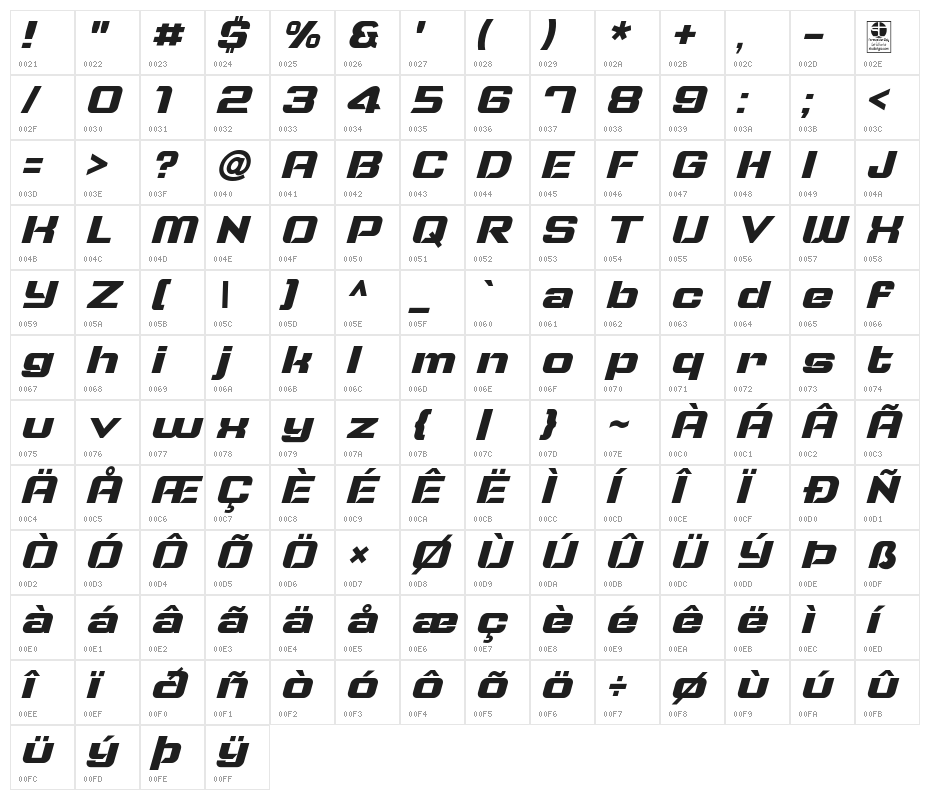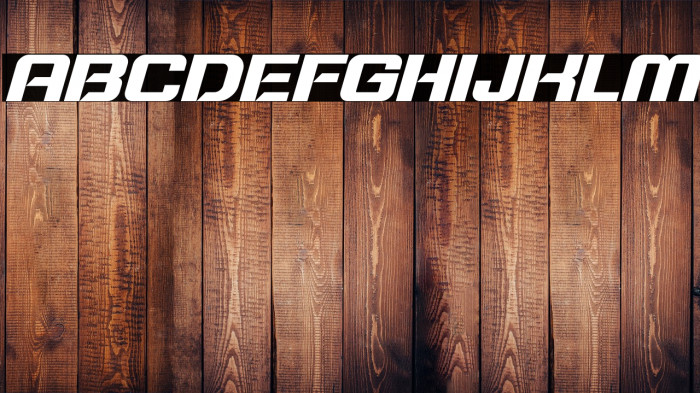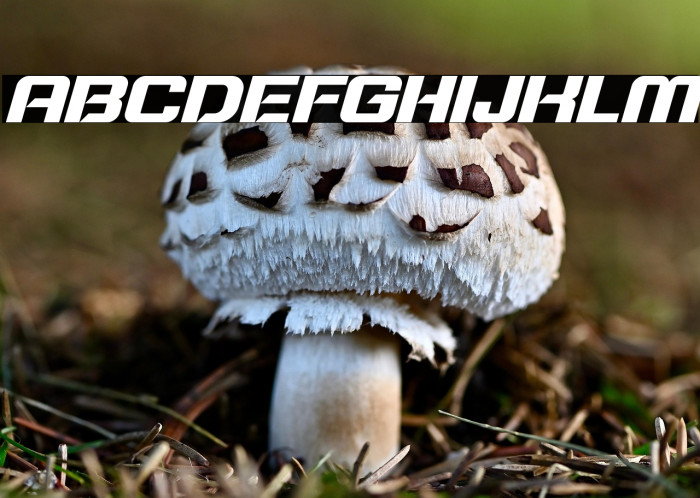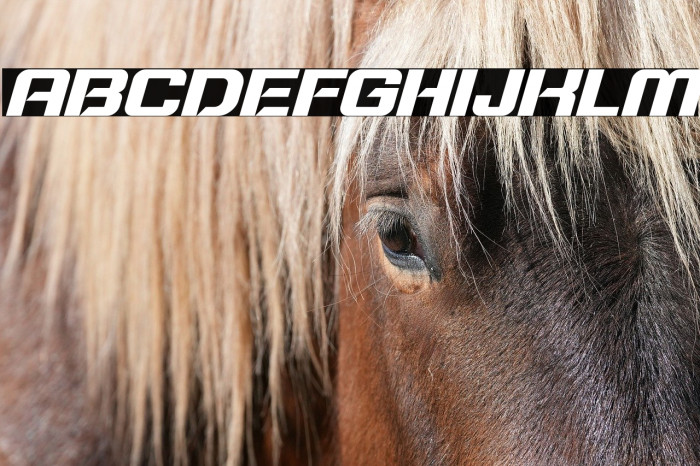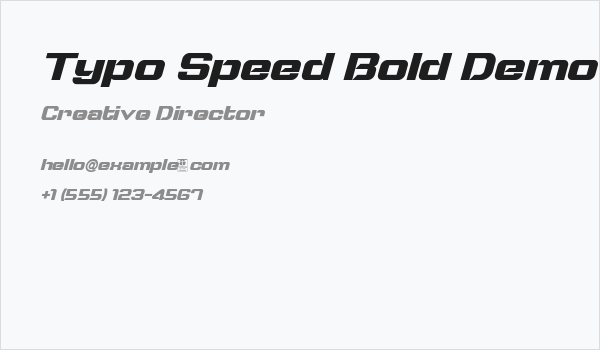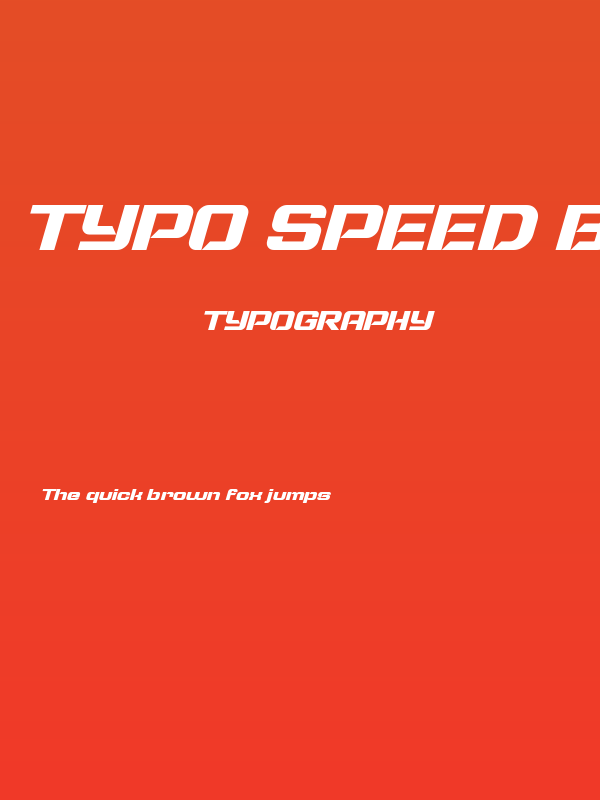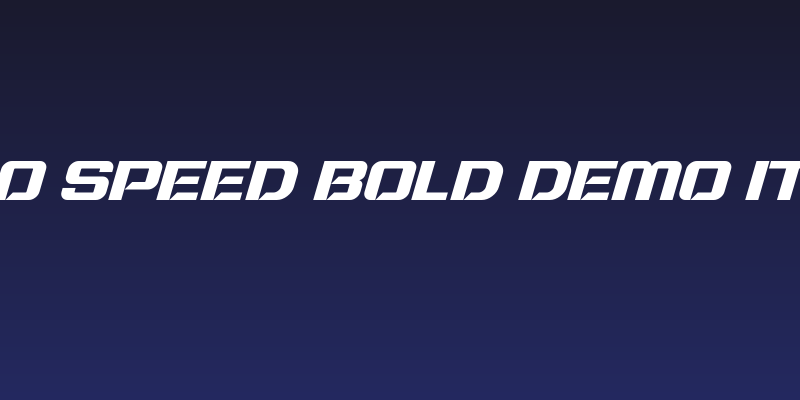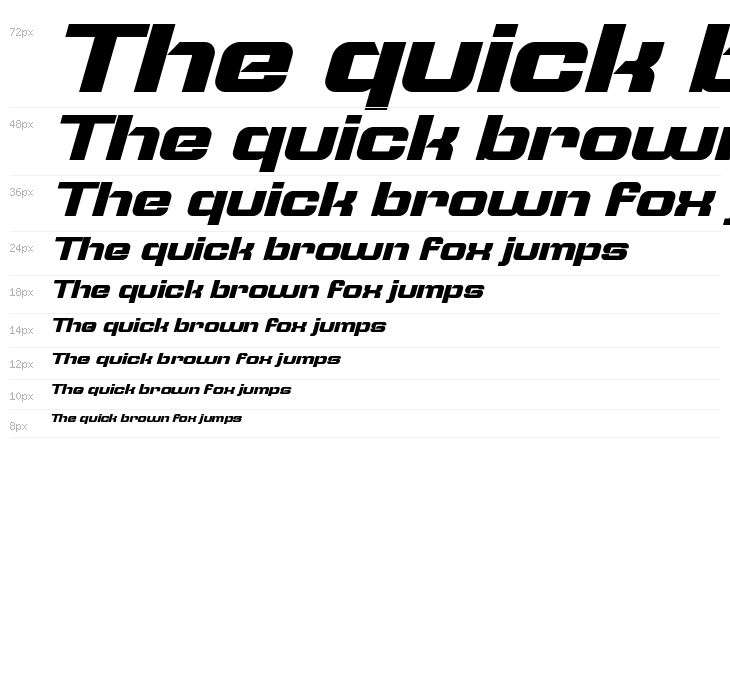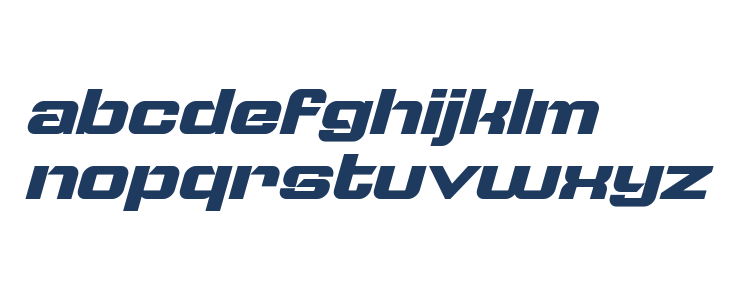
Typo Speed Bold Demo Italic Font
Typo Speed Bold Demo Italic Description
This font features a bold and dynamic style with a distinct italic slant, giving it a sense of speed and motion. The characters are designed with sharp edges and angular cuts, creating a modern and futuristic appearance. The uppercase and lowercase letters maintain a consistent style, with the lowercase letters slightly more rounded. The numerals and special characters follow the same bold and angular design, ensuring uniformity across all glyphs. The font's strong presence makes it suitable for attention-grabbing headlines and logos.